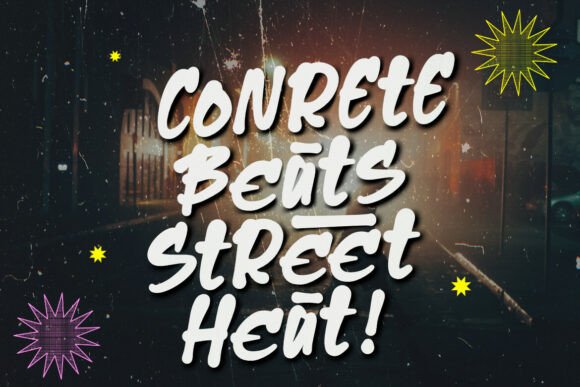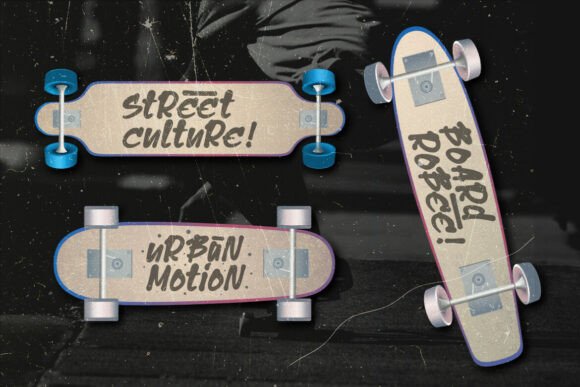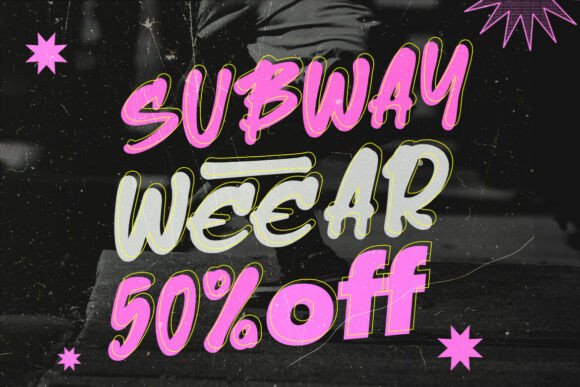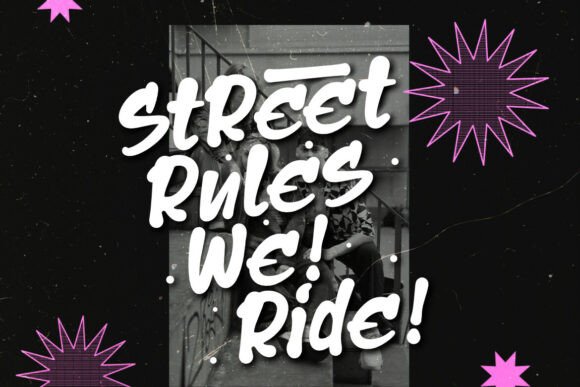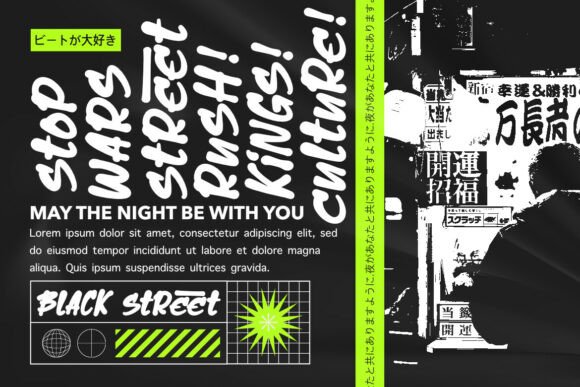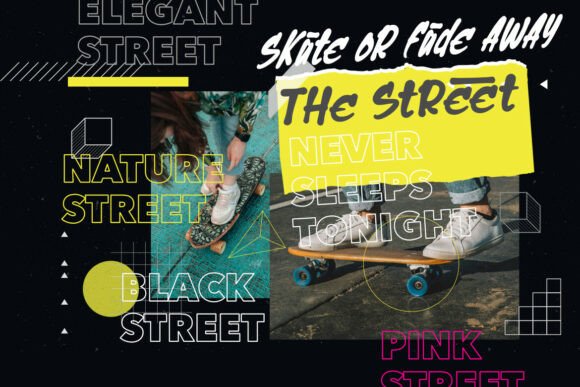
Unleashing the Raw Energy of Urban Culture: Black Street Urban Marker Font
In the vibrant world of street culture and graffiti art, the power of typography cannot be overstated. A font can evoke emotions, convey attitudes, and capture the essence of a movement. This is where the Black Street Urban Marker Font comes into play, a typeface that embodies the unbridled energy and rebellious spirit of the urban landscape. With its bold strokes, rough edges, and authentic marker textures, Black Street is more than just a font – it’s a statement.
The Essence of Urban Rebellion
Black Street Urban Marker Font is designed to channel the true essence of urban rebellion and freestyle creativity. Every letter is crafted to carry the rhythm of the city – spontaneous, loud, and full of motion. The font’s bold strokes and rough edges give it a raw, unpolished feel that’s reminiscent of graffiti art and street culture. This is a font that’s not afraid to make a statement, to demand attention and attitude.
A Font that Embodies the Fearless Voice of the Streets
Black Street stands out with its hand-drawn imperfection, making each word feel alive and real. The font’s authentic marker textures and rough edges give it a rugged yet stylish feel that’s perfect for designers and crafters who want to add a touch of urban grit to their work. Whether you’re designing for merchandise, murals, or digital media, Black Street gives your work a punch of authenticity and underground spirit.
Black Street Urban Marker Font is perfect for a variety of design applications, including:
- Branding: Add a touch of urban attitude to your brand’s identity with Black Street’s bold and edgy typography.
- Music Covers: Give your music covers a raw, energetic feel with Black Street’s graffiti-inspired font.
- Skate Graphics: Black Street’s rugged, urban aesthetic is perfect for skate graphics, from posters to stickers.
- Posters: Create eye-catching posters that demand attention and attitude with Black Street’s bold and expressive typography.
What Sets Black Street Apart
So, what sets Black Street Urban Marker Font apart from other fonts? Here are a few key features:
- Hand-drawn imperfection: Black Street’s hand-drawn imperfection gives it a unique, authentic feel that’s hard to replicate with digital fonts.
- Authentic marker textures: The font’s authentic marker textures add a touch of realism and grit to your designs.
- Rugged yet stylish: Black Street’s rugged, urban aesthetic is balanced by a stylish, sophisticated feel that’s perfect for a variety of design applications.
In conclusion, Black Street Urban Marker Font is a powerful tool for designers and crafters who want to add a touch of urban grit and attitude to their work. With its bold strokes, rough edges, and authentic marker textures, this font embodies the fearless voice of the streets – rugged yet stylish, raw yet intentional. Whether you’re designing for merchandise, murals, or digital media, Black Street gives your work a punch of authenticity and underground spirit. So why settle for a generic font when you can unleash the raw energy of urban culture with Black Street Urban Marker Font?